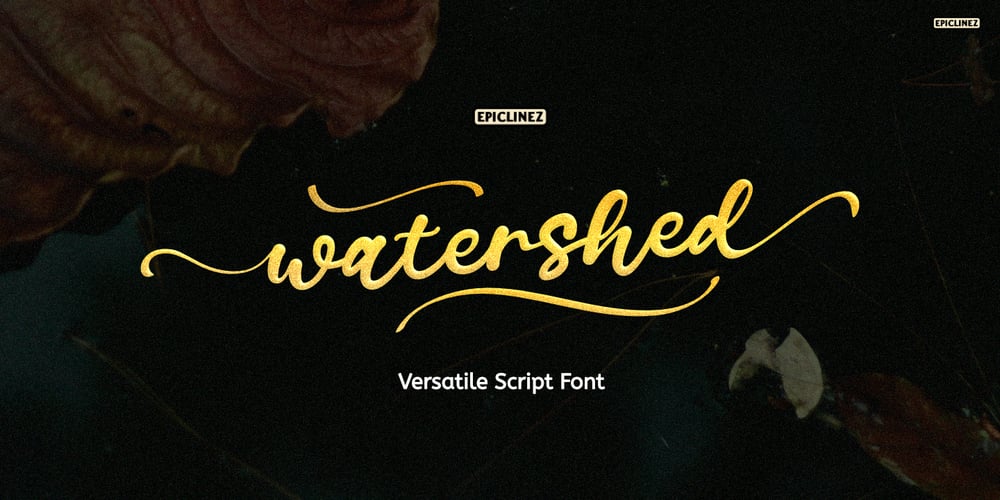
Watershed Font Family was designed by Aldy Sidik and published by Epiclinez. Watershed contains 1 styles and family package options. Watershed is a stylish script font. It has Open Type features such as Stylistic Sets, Ligatures, and Swashes. This font is also multilingual and PUA encoded. Use it for any design projects that require a charming appearance!